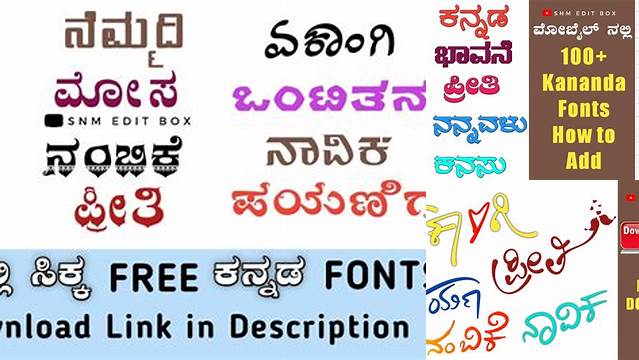
Create Cool Kannada Fonts Online Free
Hey everyone! Are you looking to spice up your Kannada text and make it pop? Want to create some eye-catching designs without spending a dime? Well, you're in luck! This article is all about the amazing world of Kannada font style generators that are available online, and guess what? They're totally free! We'll dive into how these tools work, explore different font styles, and give you some tips on how to use them effectively. So, grab your coffee (or tea!), and let's get started on this awesome journey of Kannada typography!
H2: Exploring the World of Free Online Kannada Font Generators
Alright, folks, let's get right into it! The internet is a goldmine of free tools, and Kannada font style generators are no exception. These generators are essentially online applications that allow you to transform your regular Kannada text into various stylish fonts. Think of it as a digital makeover for your words! The best part? They are typically super easy to use. You just type or paste your text, select a font style, and voila! Your text is instantly transformed. These tools are a lifesaver for anyone who wants to add a creative touch to their Kannada content, whether it's for social media posts, posters, website design, or even personal projects. The accessibility of these free online generators is a game-changer, democratizing design and allowing anyone, regardless of their technical skills or budget, to create visually appealing Kannada text.
So, what exactly can you do with these generators? The possibilities are vast. You can experiment with different font styles to match the mood or theme of your content. Want something formal and elegant? There are fonts for that. Need something fun and quirky? You'll find options there too! You can use these generators for creating logos, designing invitations, or simply adding a bit of flair to your everyday communication. The best Kannada font style generators often provide a wide selection of font styles, from traditional to modern, allowing for incredible versatility. Beyond the aesthetic appeal, using custom fonts can also help your content stand out from the crowd, making it more memorable and engaging. The goal is to elevate your text to a new level of visual interest, ensuring that your message resonates with your audience.
Before you start, keep in mind a few key points. Ensure that the font generator supports the Kannada script, as not all online tools do. Also, consider the readability of the font style, and it's absolutely crucial. While fancy fonts can be eye-catching, make sure your audience can easily understand your message. When choosing a generator, look for one that offers a variety of styles, is easy to use, and doesn't require any complicated software installations. Also, if you intend to use the generated text commercially, always double-check the licensing terms of the fonts. And finally, have fun! Experiment with different styles, play around with your text, and see what works best for you.
H2: Top Free Kannada Font Style Generators You Should Know
Now, let's get into the good stuff: some of the best free Kannada font style generators available online! I'll share some of my favorites, and give you a little insight into why they are so great. These tools are perfect for all levels of designers, from absolute beginners to seasoned pros. One of the key things I look for in a good generator is ease of use. You don't want to spend hours trying to figure out how to use a tool. A good user interface is essential. I want a platform that allows me to quickly see the results of my efforts.
Another thing is the variety of fonts. Some of these generators offer a vast selection of Kannada font styles. This way, you will have lots of options, and you can always find something that fits your specific project. Consider factors like the availability of download options, and if they allow for customization. Some generators let you tweak your font style further, such as changing the size, color, and spacing. Then, of course, there's the question of compatibility. Make sure the fonts generated work on different platforms and devices. You need a tool that supports all your needs, and the needs of your audience. Let's dive in:
Generator A: This generator is known for its intuitive interface and a wide range of font styles. It's perfect for creating eye-catching social media graphics or website banners. It generally provides good customization options, so you can have full control of your fonts and design.
Generator B: If you need a generator with a focus on traditional Kannada fonts, this is the one. It's ideal for creating more formal documents or designs that require a touch of classic elegance. Check if they offer downloads, or other options for sharing.
Generator C: This tool stands out due to its modern and experimental font styles. It's perfect for creating unique and creative designs, such as logos, posters, and other art projects. It has a lot of customization options that will set your creative juices flowing.
H2: Step-by-Step Guide: How to Use a Kannada Font Generator
Alright, let's get practical! Using a Kannada font style generator is typically a breeze, but here's a step-by-step guide to help you get started. These steps are general, as each generator may vary slightly in interface and features. This will help you navigate your way through the tools easily.
First, find a reliable online Kannada font generator. There are many options to choose from, so you can follow the recommendations above, or do some searches to find a good generator. Once you've found one, head over to their website. Then, you'll want to type or paste your Kannada text into the designated text box. Make sure you do not include any extra characters or symbols that might interfere with the generation.
Next, browse through the available font styles. Most generators will display previews of your text in each font, making it easy to see what it looks like. Select the font style that best suits your needs. Some generators may also offer customization options, such as adjusting the font size, color, or spacing. If these options are available, feel free to experiment with them to refine your design. After you are happy with the font, you can usually copy and paste the generated text directly, or download it as an image file. If you are copying and pasting, make sure to use a text editor that supports Kannada fonts to display the text correctly. If you are downloading as an image, you can use image editing software to add the text to your designs.